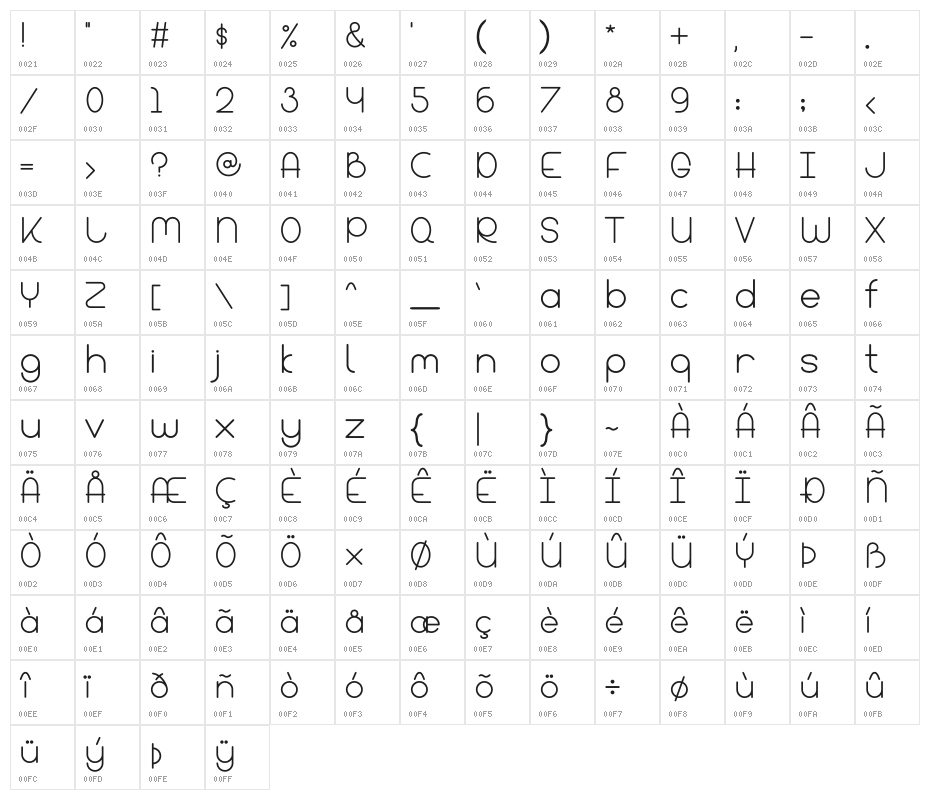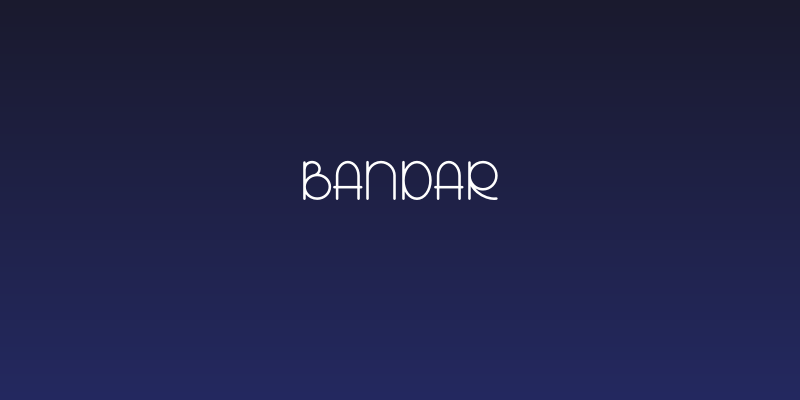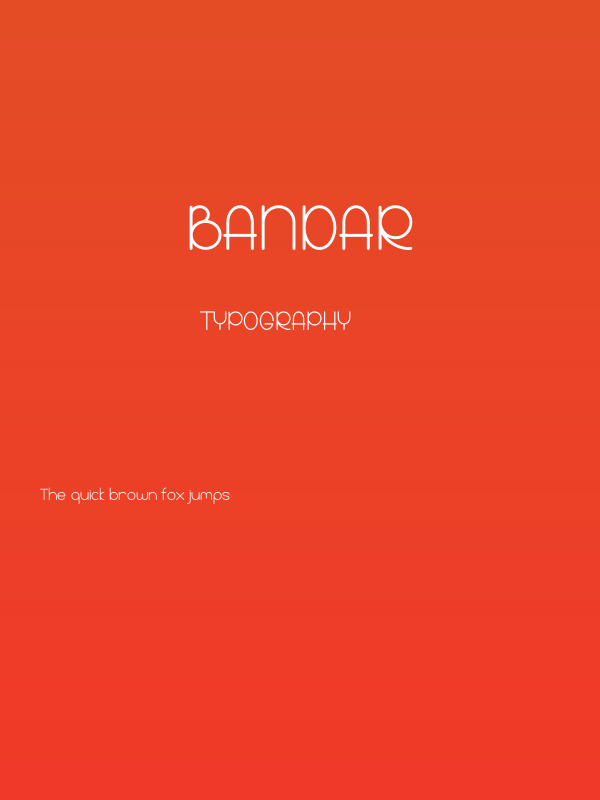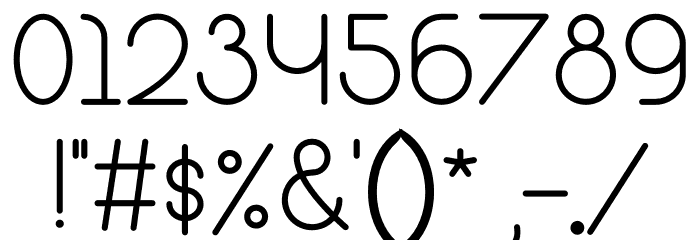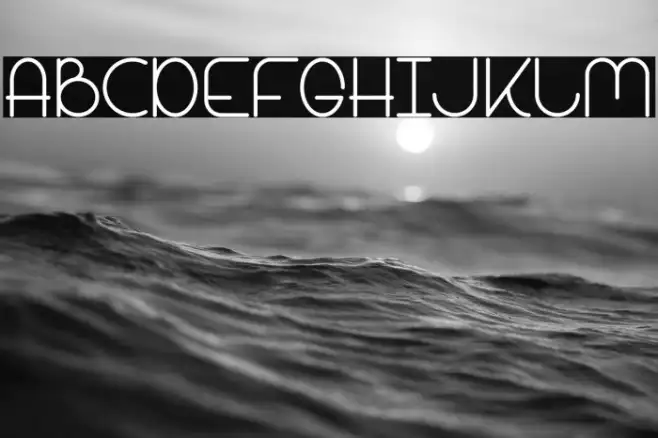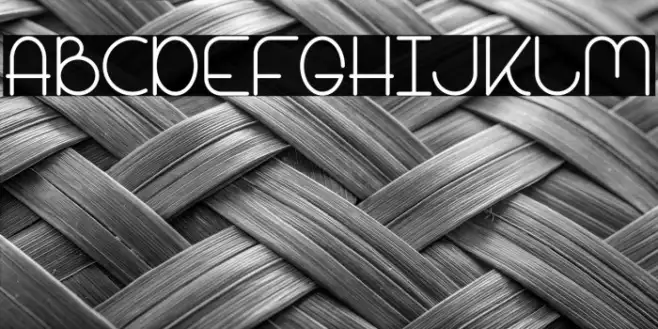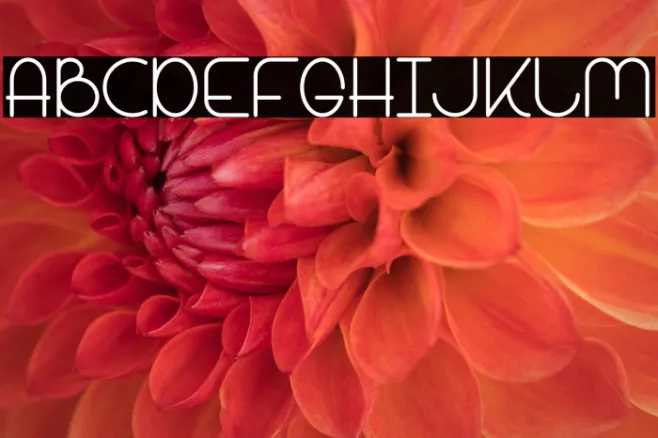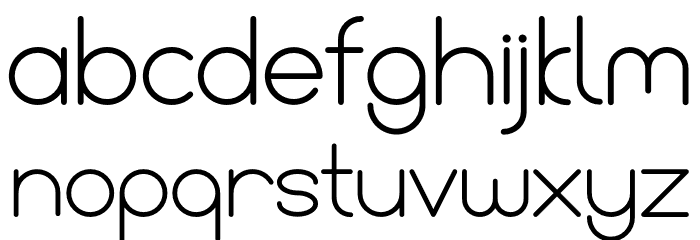
Bandar Font
Bandar Description
This font features a modern, geometric design with rounded edges and a clean, minimalist aesthetic. The uppercase and lowercase letters maintain a consistent height, creating a uniform appearance. The numerals are distinct and easy to read, while the special characters blend seamlessly with the overall style. The font's simplicity and clarity make it versatile for various design applications. Its rounded forms and open counters contribute to a friendly and approachable look, suitable for both digital and print media.
| Use Case | Headlines, Body text, Logos |
| Proposed Projects | Ideal for branding, web design, advertising, and packaging projects that require a clean and contemporary look. |